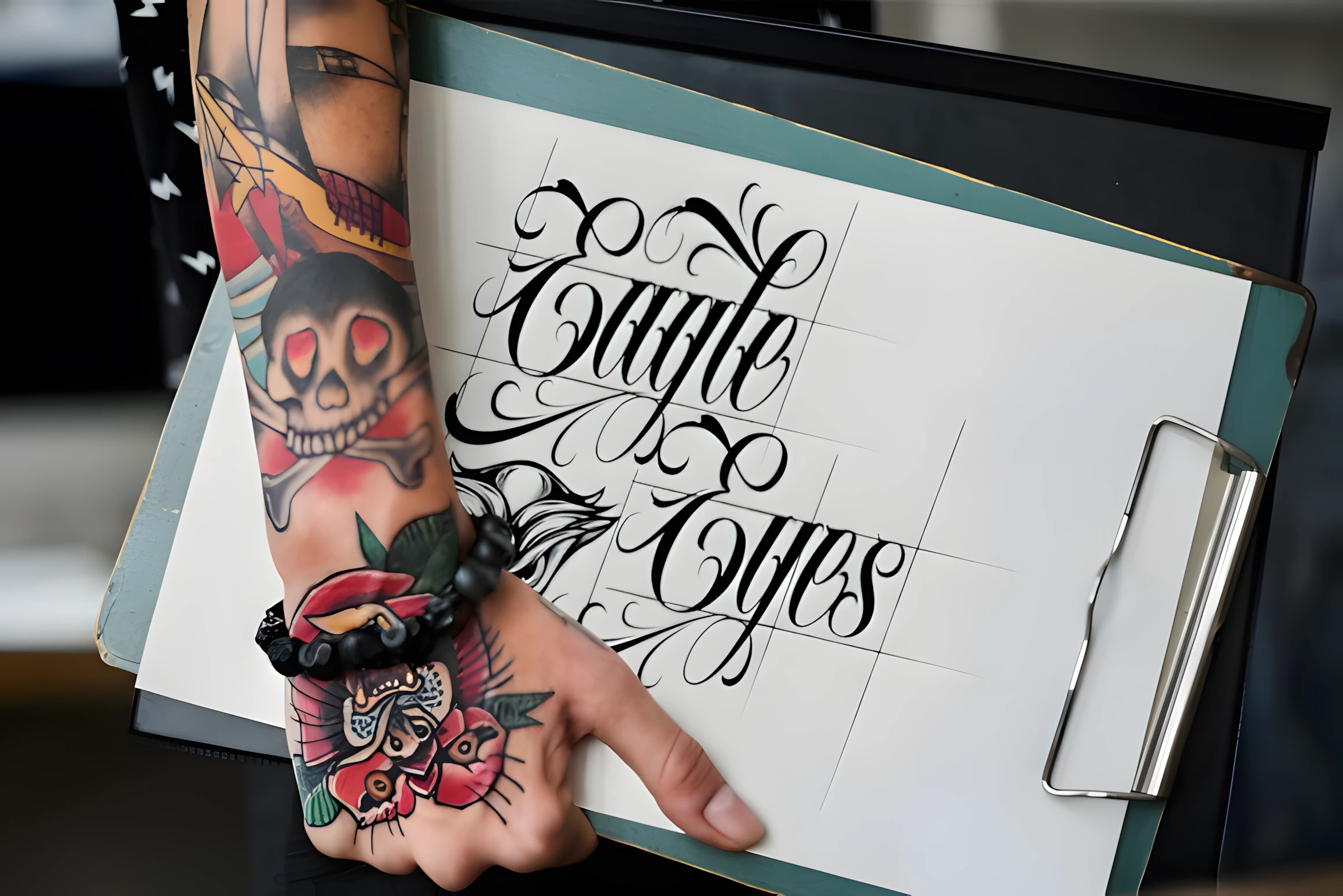
Black Ink Font is a modern take on classic blackletter tattoo fonts, designed to make a statement. It blends traditional roots with a bold, hand-drawn feel that’s perfect for today’s designs.
This font works great for logos, tattoo art, t-shirts, posters, flyers, and branding that needs to stand out. Each letter looks carved, like ink pressed onto skin, paper, or fabric. It doesn’t just decorate a design; it makes a statement.
With its strong lines, fancy swashes, and vintage touches, Black Ink Font has a powerful voice. Whether you’re creating a tattoo logo, a vintage label, or a strong headline, this font provides impact, attitude, and realness.